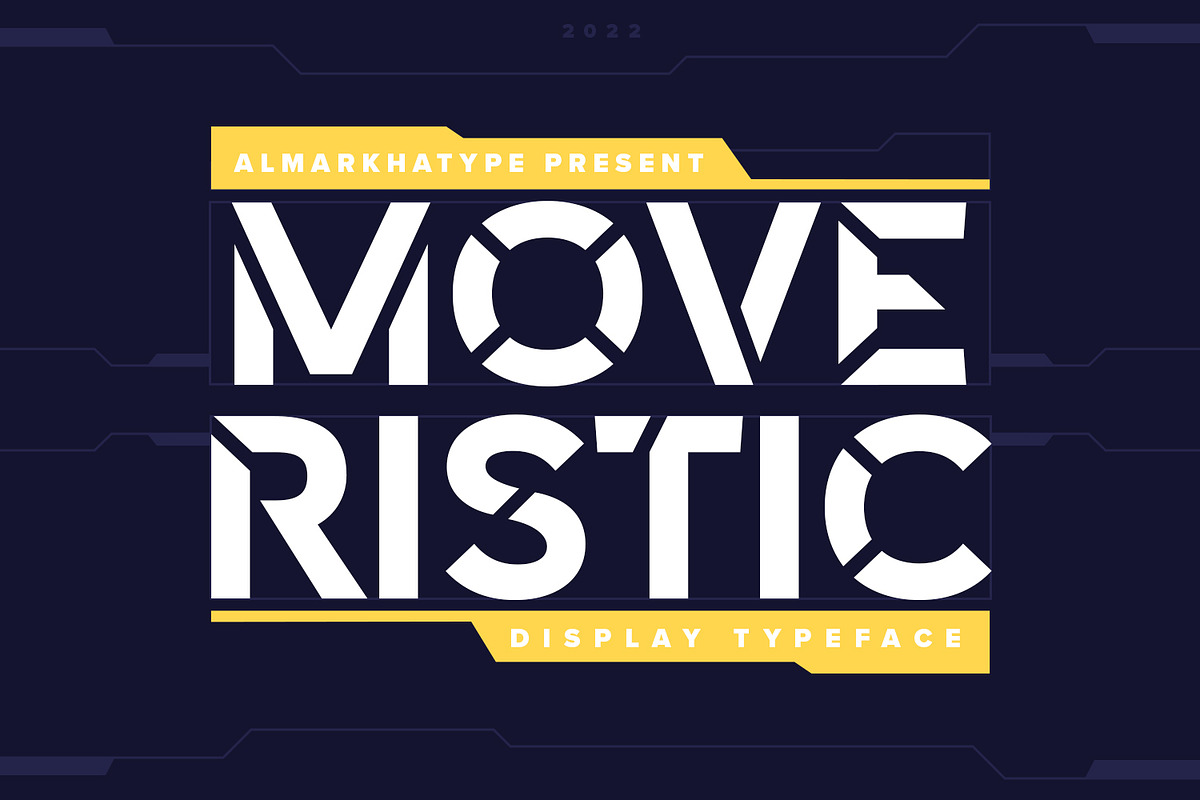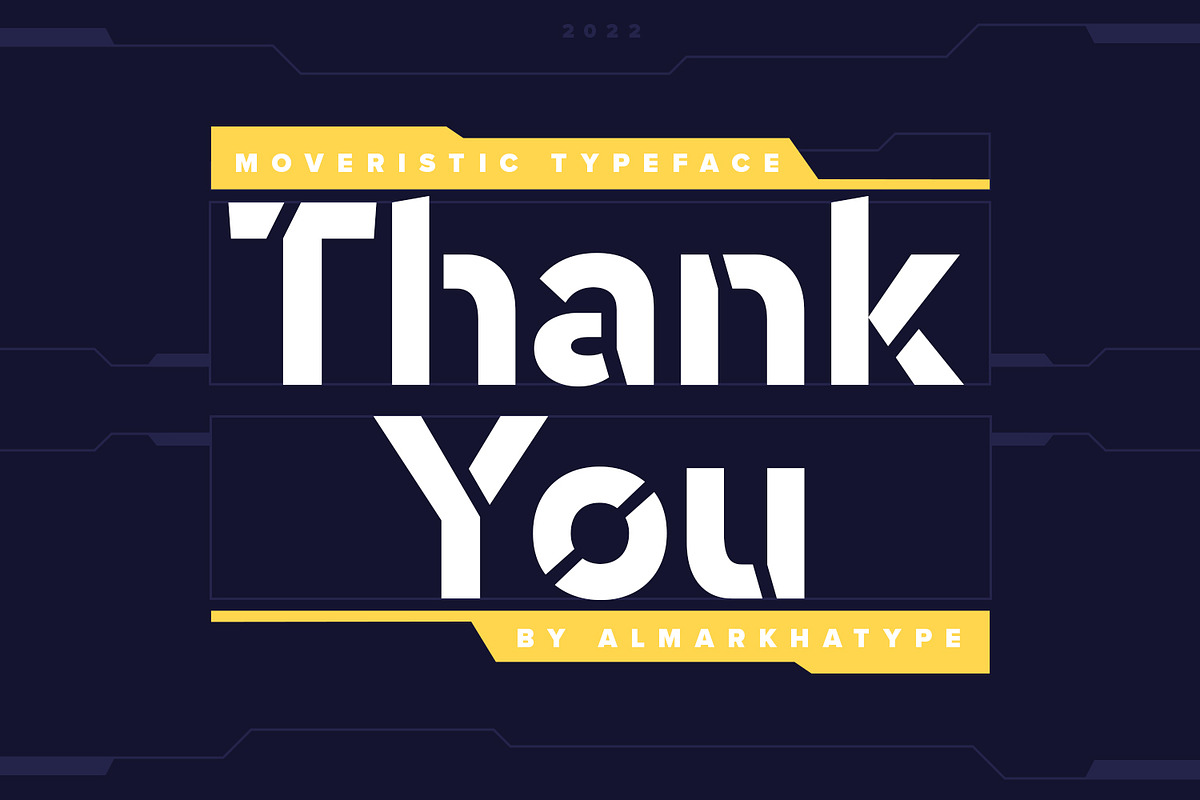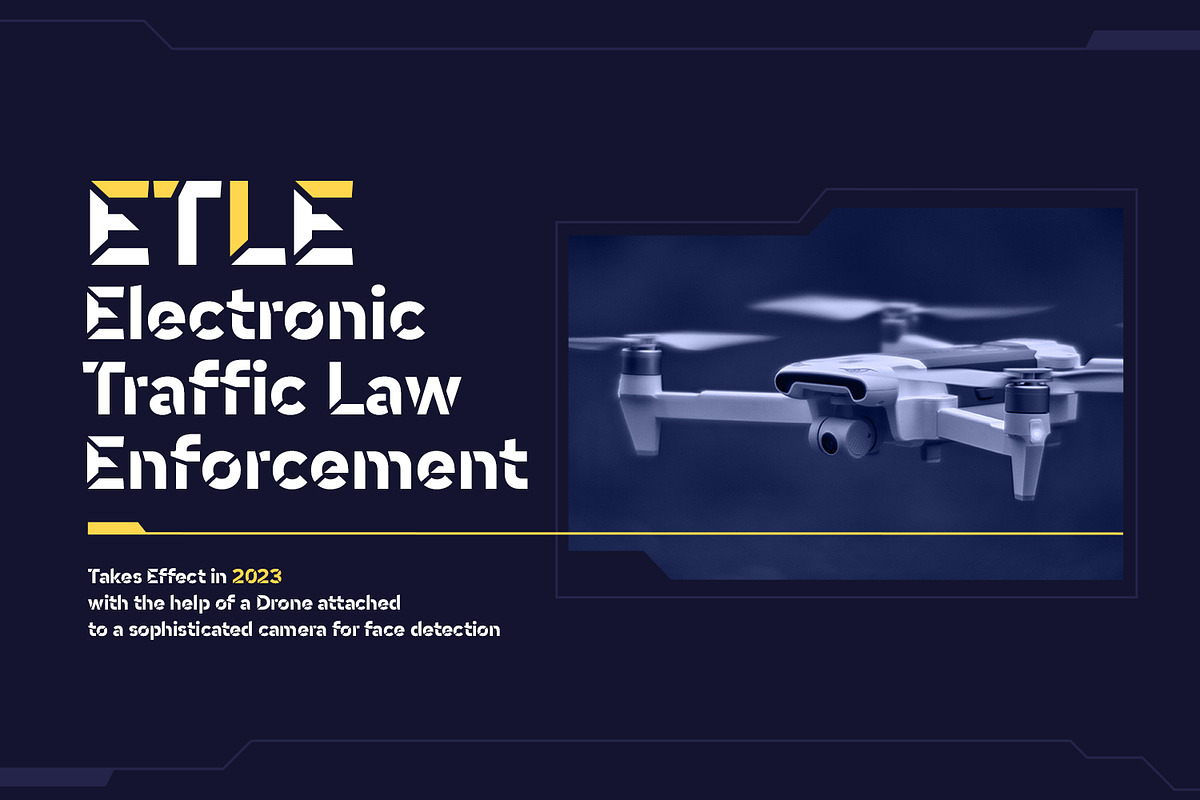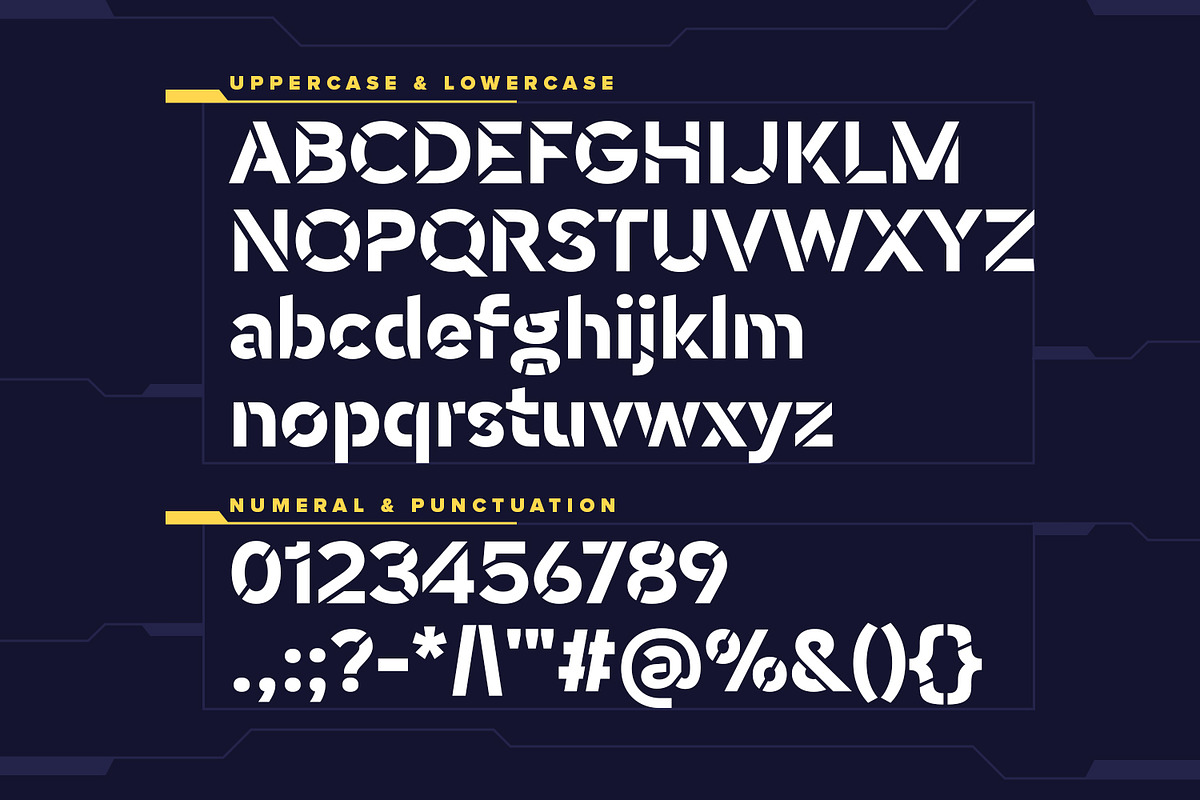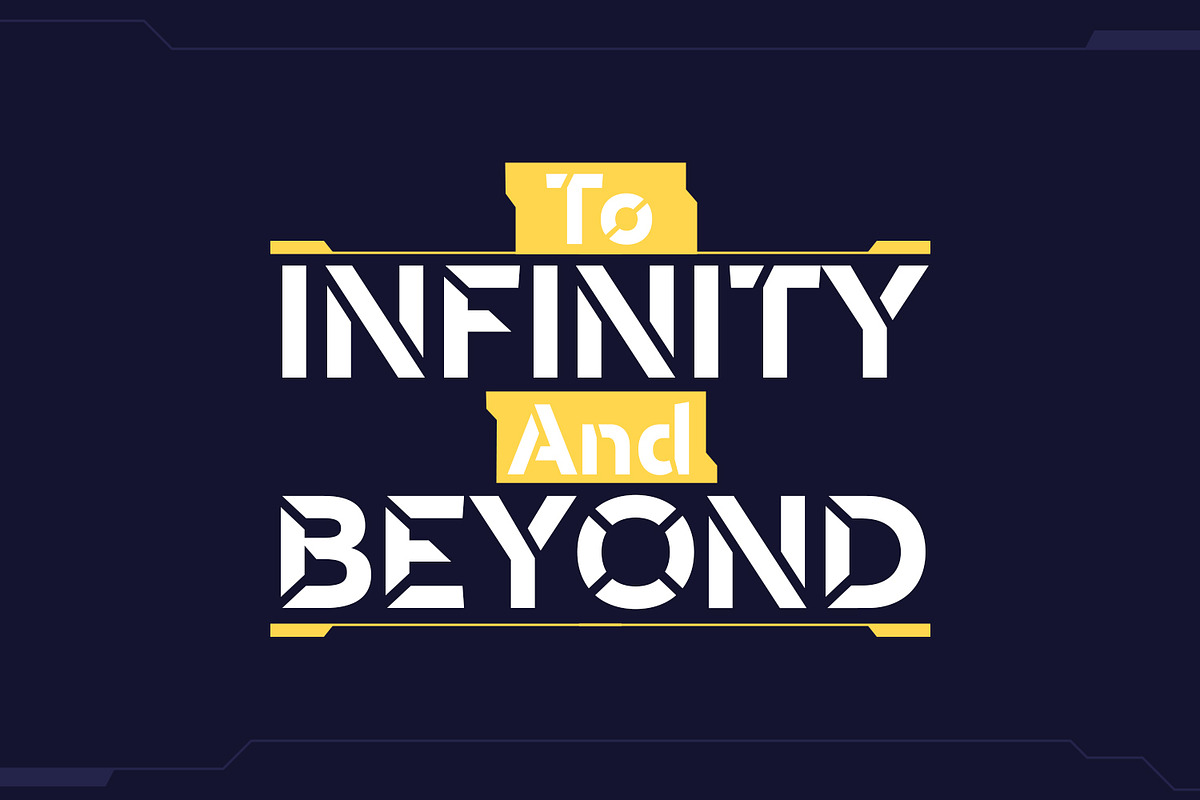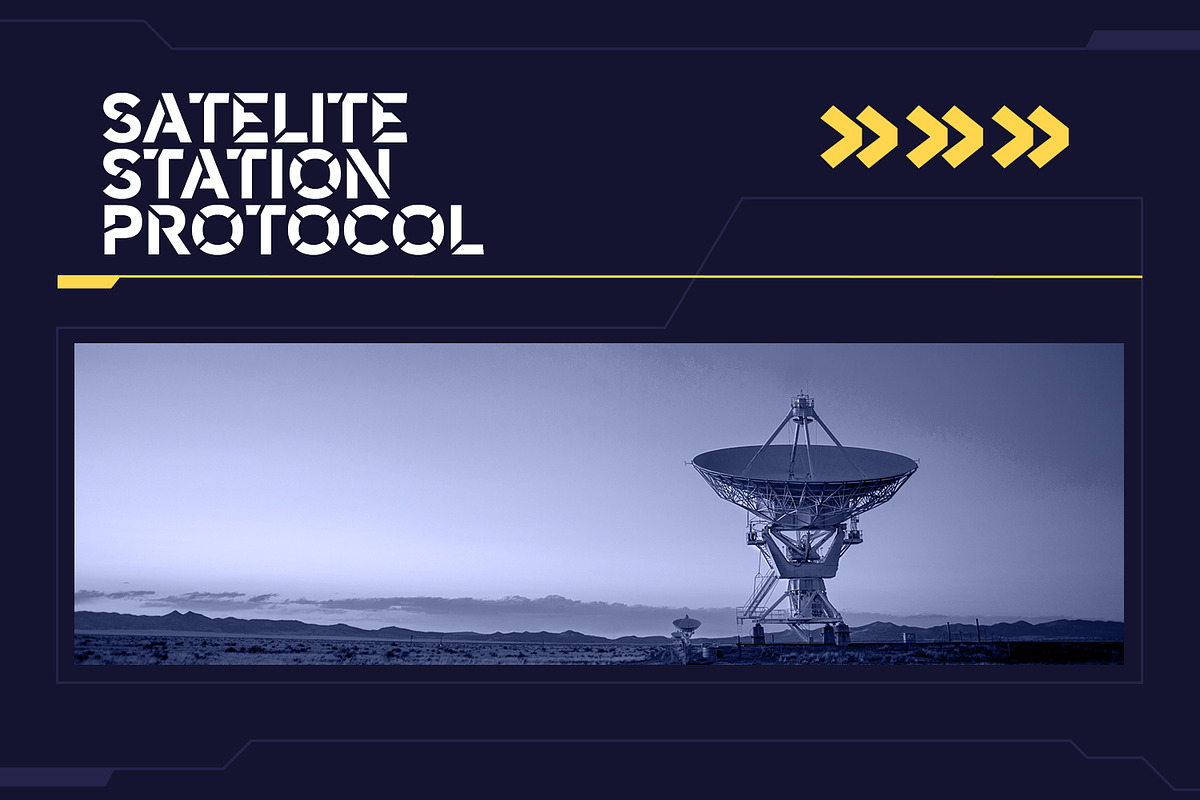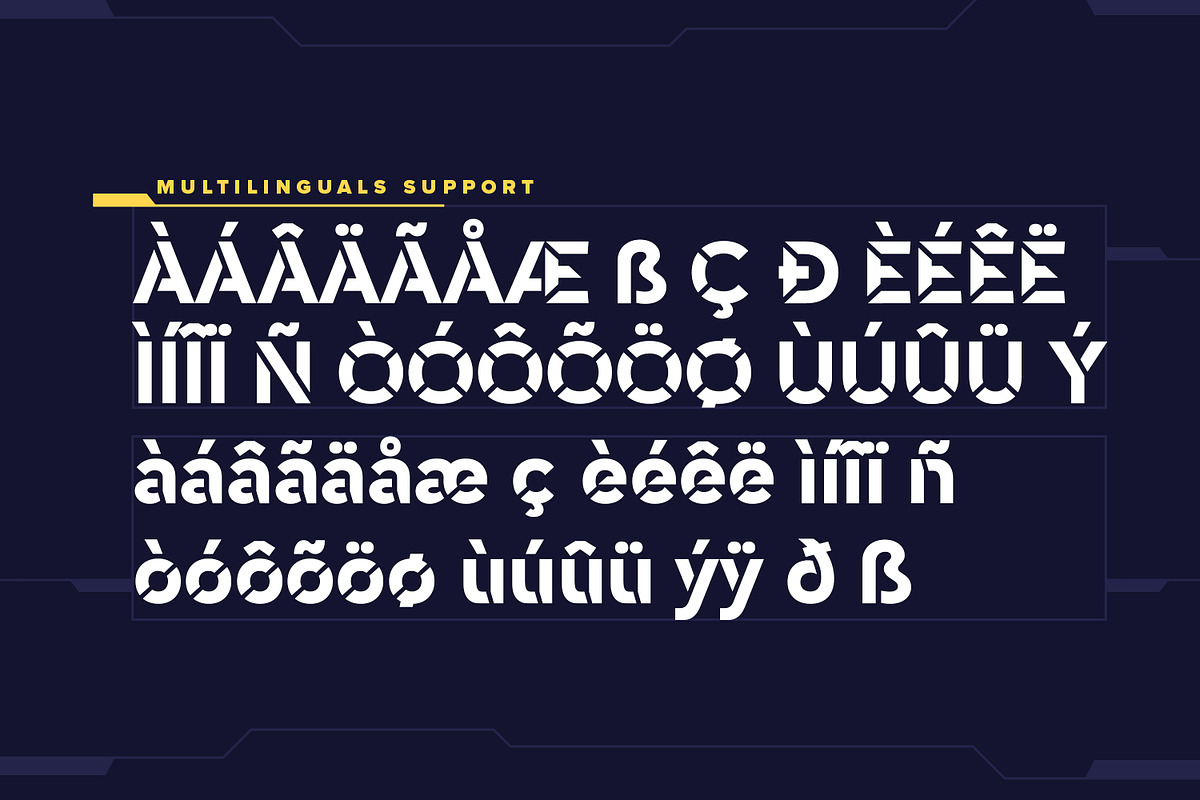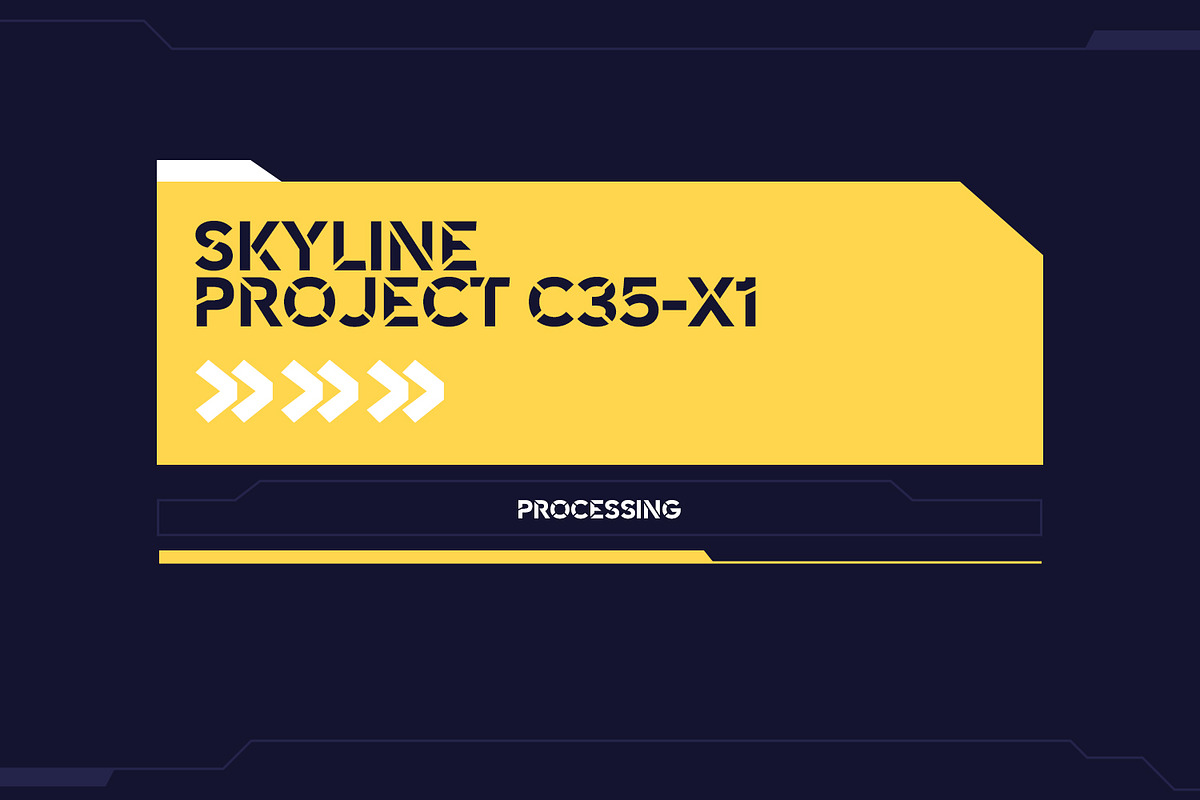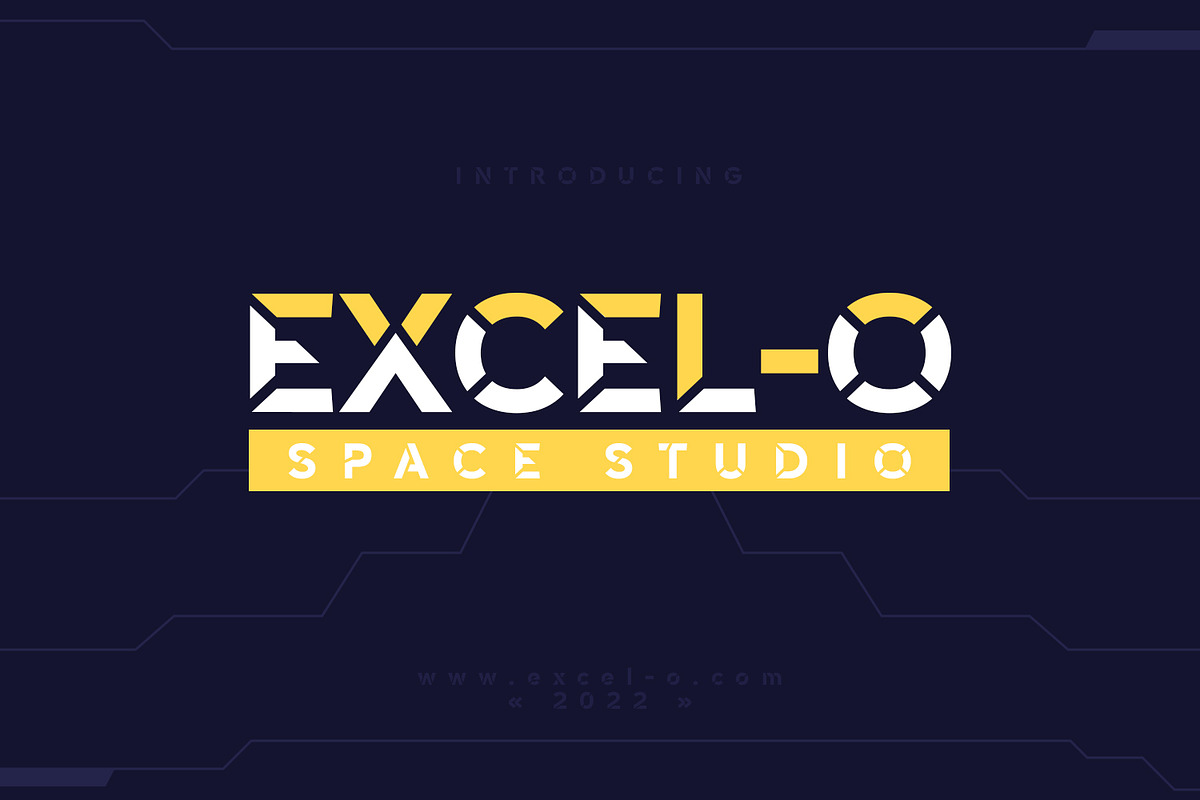
Moveristic – Font From Future
Introducing Moveristic, a font from the future. This cutting-edge sans-serif typeface boasts a distinctive lowercase style that adds a futuristic and modern flair to your designs. Crafted to make your creations stand out, Moveristic excels in crafting captivating logotypes that demand attention.
Let your creativity soar as you explore the unique uppercase and lowercase characters of Moveristic, ensuring your logo is not just visually striking but also exceptionally legible. Delve deeper into customization with its special alternates, providing an additional layer of uniqueness to your designs.
Whether you’re crafting for tech startups, sleek branding projects, or modern editorial layouts, Moveristic is the font of choice for making a bold statement. Elevate your designs with Moveristic and witness your creations transcend into a realm of unmatched sophistication and style!
- Ligatures glyphs
- Alternate glyphs